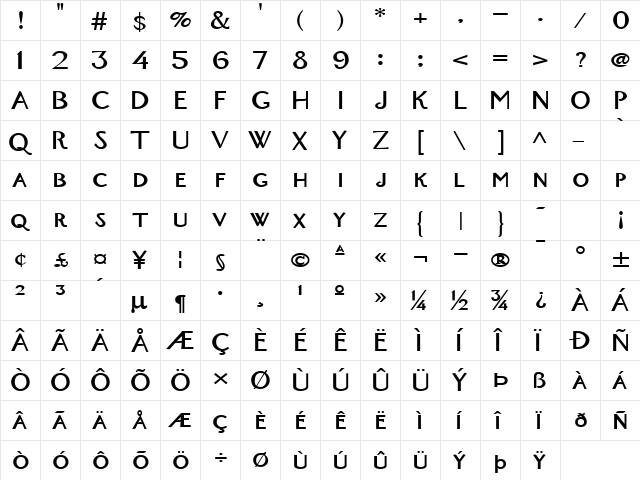
New-York-Extended Bold
Design Context for New-York-Extended Typeface
New-York-Extended offers clean, dependable letterforms without strong stylistic allegiance, making it a practical choice for designers who need flexibility. Its bold stroke weight gives it real presence on the page.
Pro Tip: Use New-York-Extended in both headline and body roles to test its range before committing to a single application.